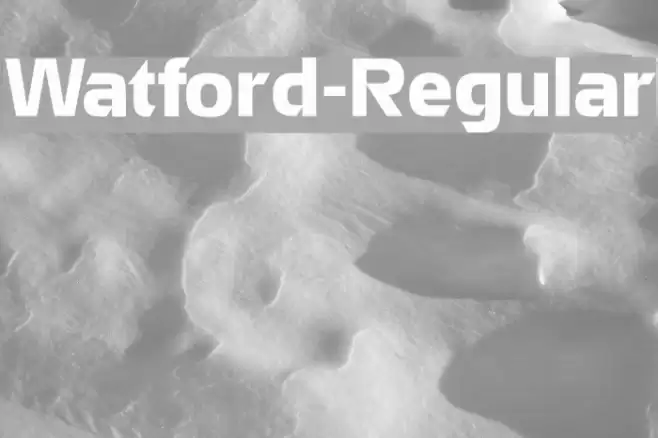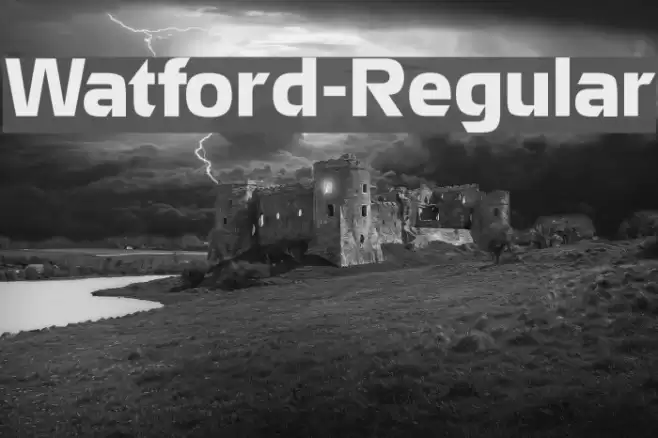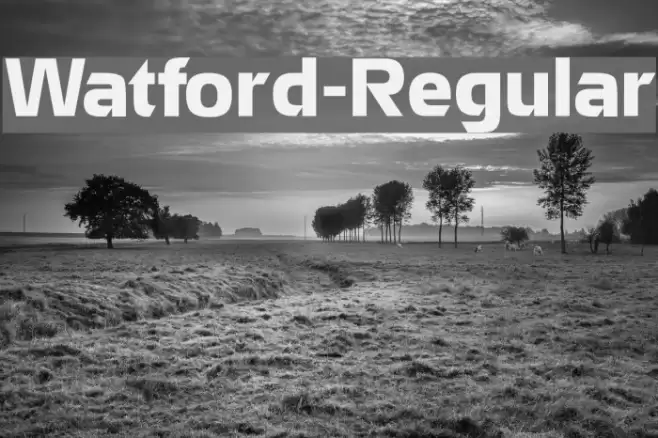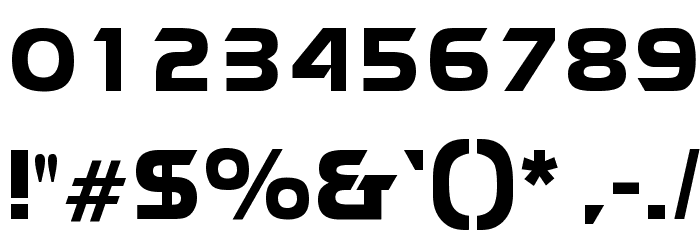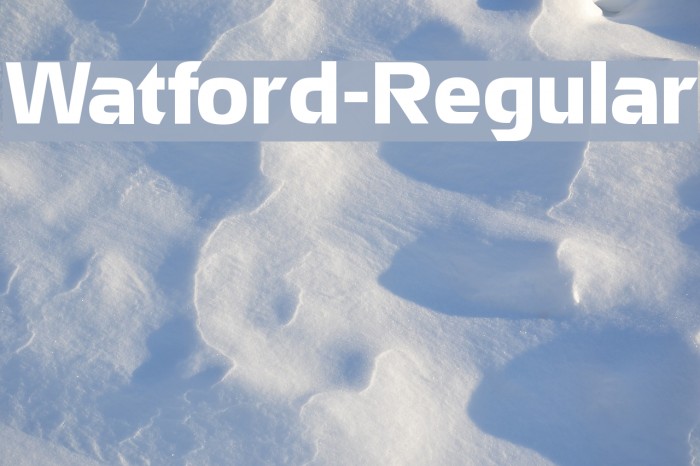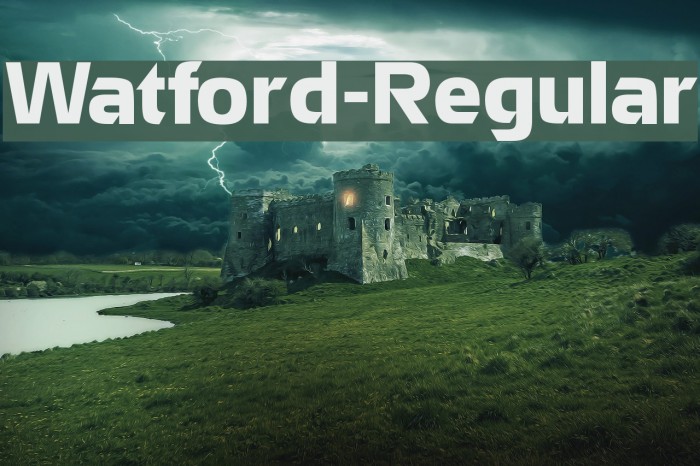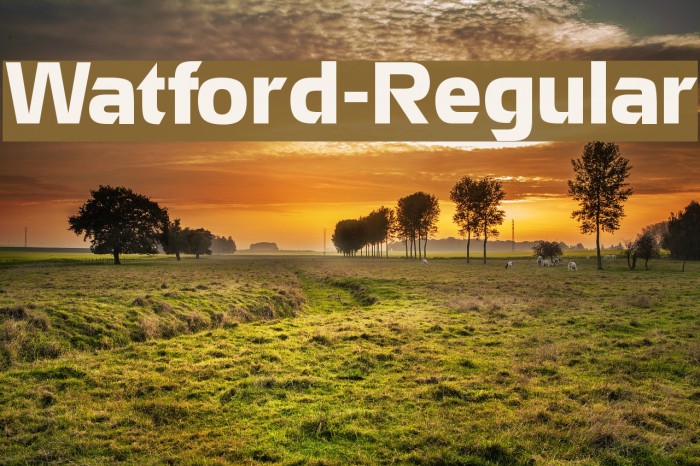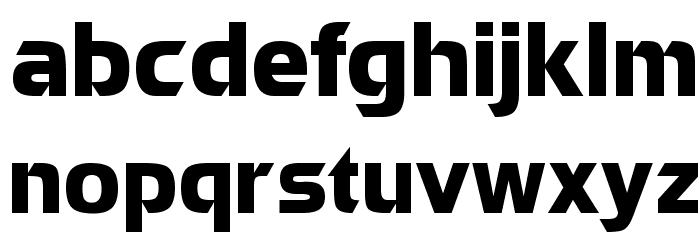
Watford-Regular Font
Watford-Regular Description
This font features a bold and modern design with strong geometric shapes and clean lines. The uppercase letters are particularly striking, with a uniform height and width that create a cohesive look. The lowercase letters maintain the same boldness, offering a consistent visual weight across all characters. Numbers are equally bold and clear, making them highly legible. Special characters are designed with the same attention to detail, ensuring they fit seamlessly with the rest of the font. Overall, this font exudes a contemporary and professional feel, making it suitable for a variety of design applications.
A bold, modern font with geometric shapes and clean lines.
- Proposed Projects: Ideal for branding, headlines, posters, and digital media where a strong, modern presence is desired.
- Category: Sans-Serif
- Use Case: Headlines, Logos, Branding